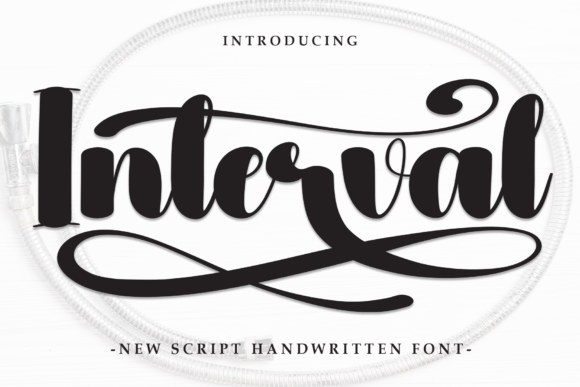
Unleash your creativity with Interval Font, the ultimate script font that captures the essence of vintage charm and modern elegance. Step into a world of timeless beauty, where your designs come alive with a touch of nostalgia and a sprinkle of contemporary flair.
Picture this: a wedding invitation adorned with Interval's flowing curves, evoking a sense of heartfelt romance. Thank you cards that exude genuine appreciation, handwritten with the grace and finesse of Interval's strokes. Inspirational quotes take on a new life when rendered in Interval's enchanting script, each word a visual masterpiece that speaks to the soul.
From logos and business cards to greeting cards and social media posts, Interval Font effortlessly elevates your designs, adding a touch of sophistication and individuality. Its versatility knows no bounds, adapting seamlessly to any project that calls for a handwritten aesthetic.
With Interval's PUA-encoded characters, you have complete creative freedom at your fingertips. Access a world of possibilities without the need for additional design software. Unleash your imagination and explore the endless design opportunities that await.
Interval Font is not just a collection of letters; it's an invitation to embark on a creative journey. Transform your designs into works of art, imbued with a timeless elegance that resonates with your audience. Embrace the beauty of the handwritten script and let Interval Font guide you towards design excellence.